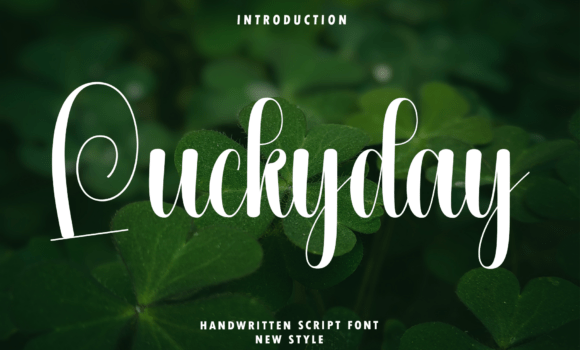
luckyday
Luckyday Font – Free Download Introduction to Luckyday Font Luckyday is an elegant and fluid handwritten script font that captures the essence of a modern, sophisticated typeface. 📸 Preview Gallery 6 images 📌 Product Name Luckyday Font 👤 Author Black